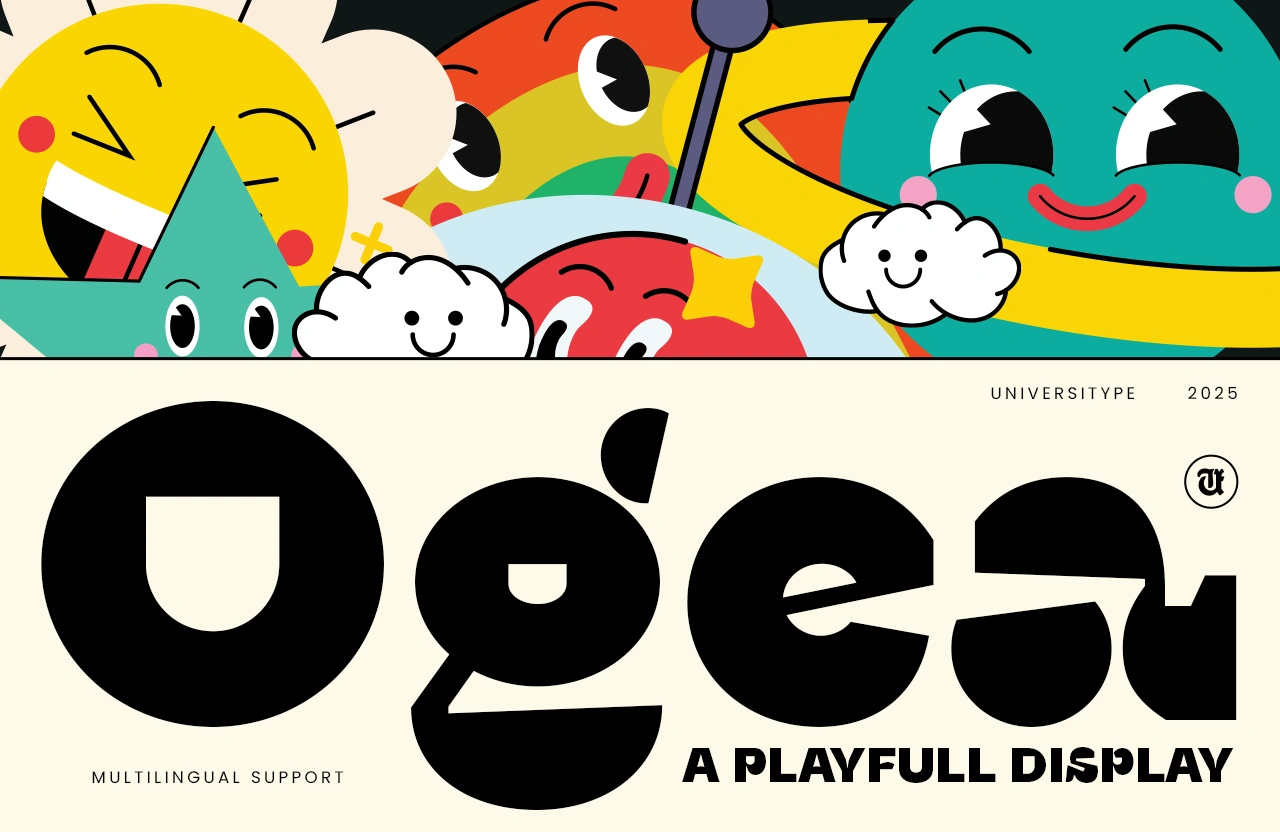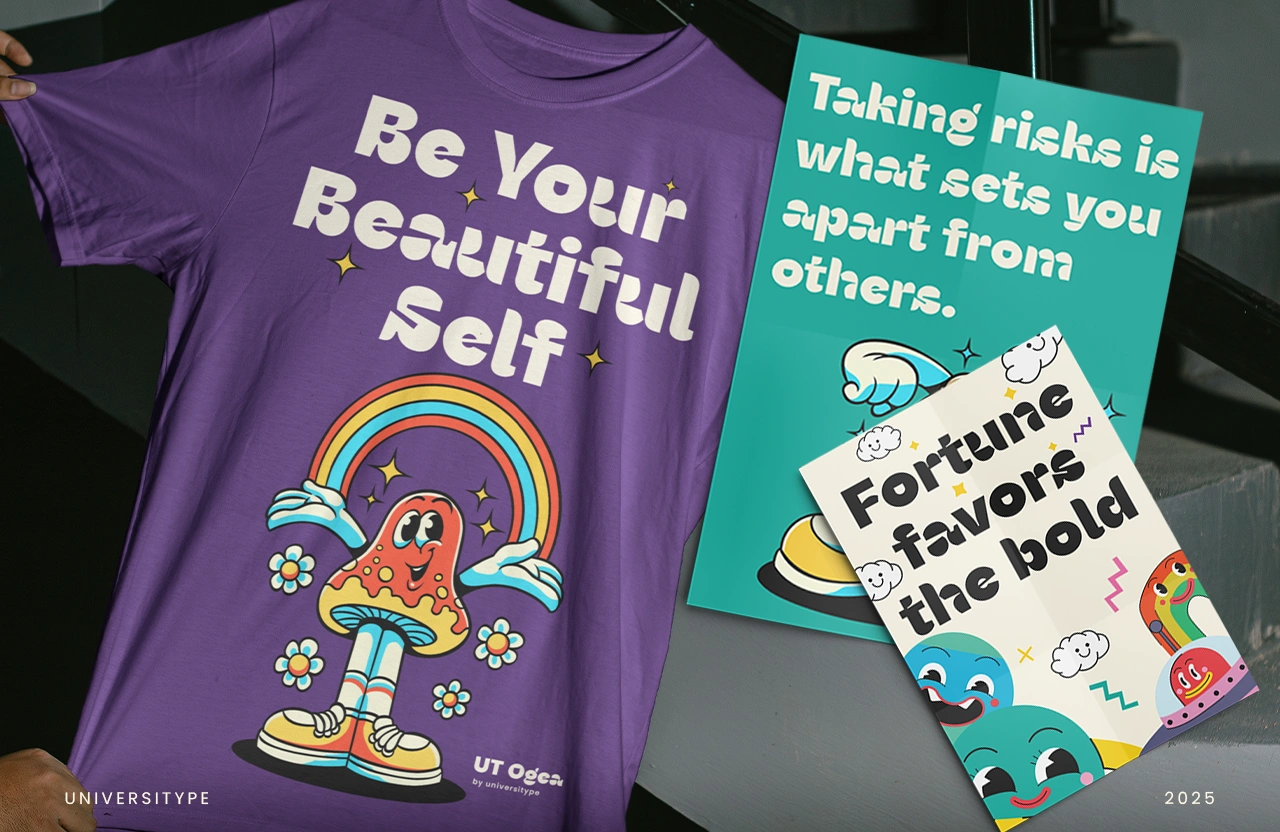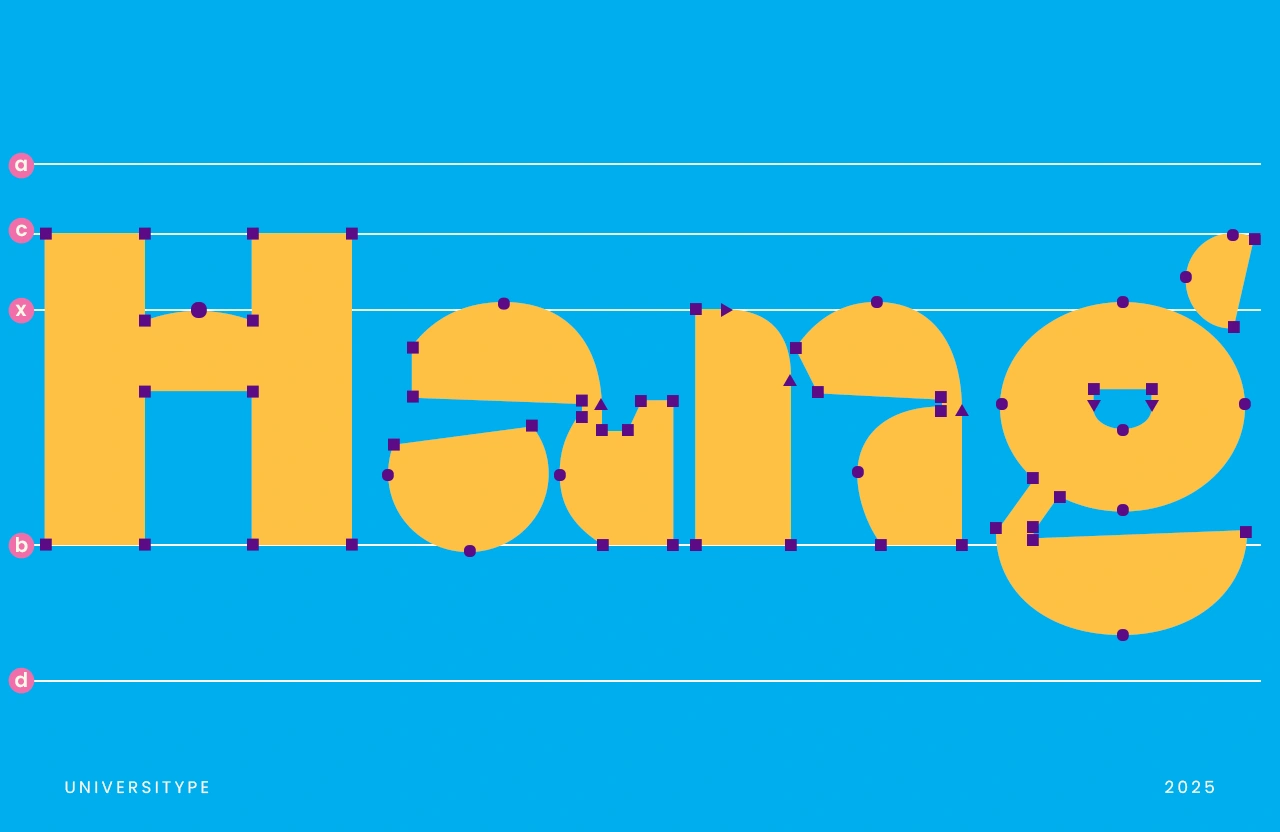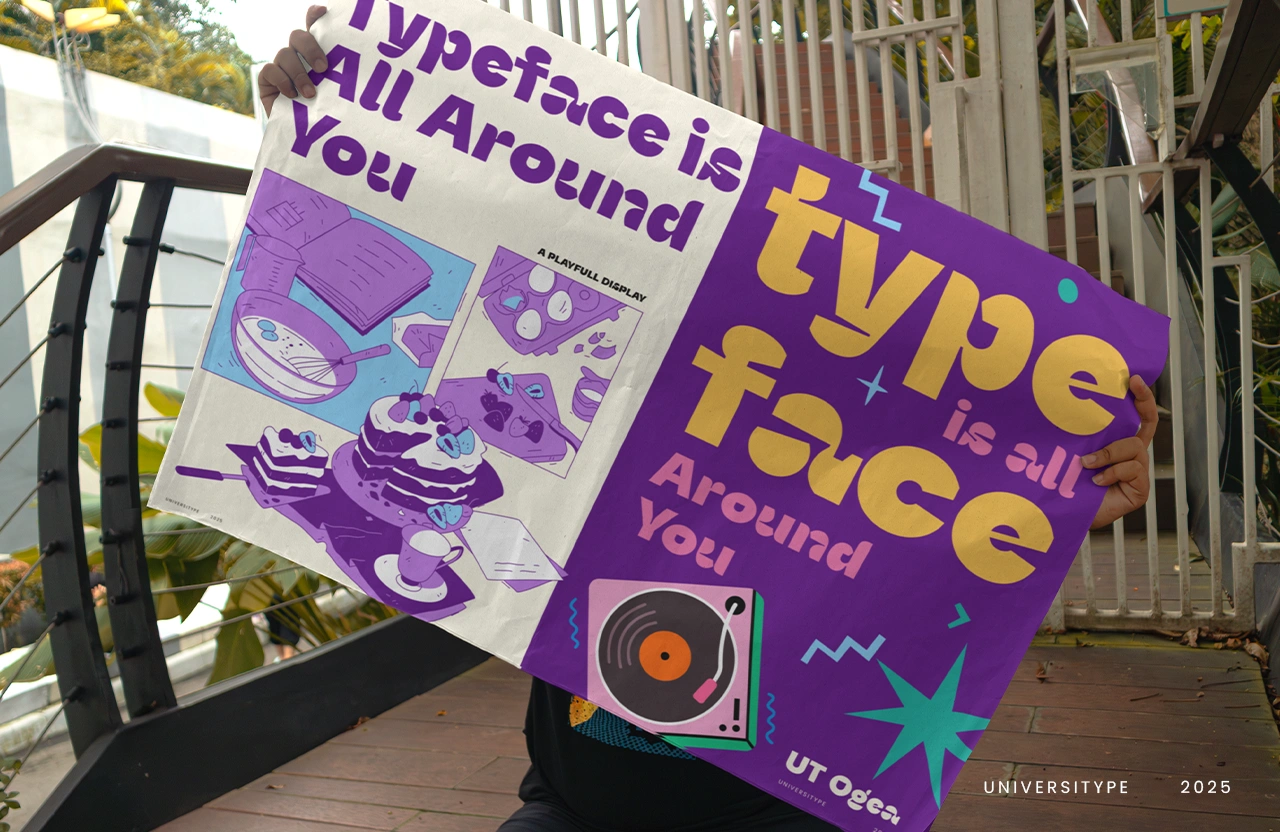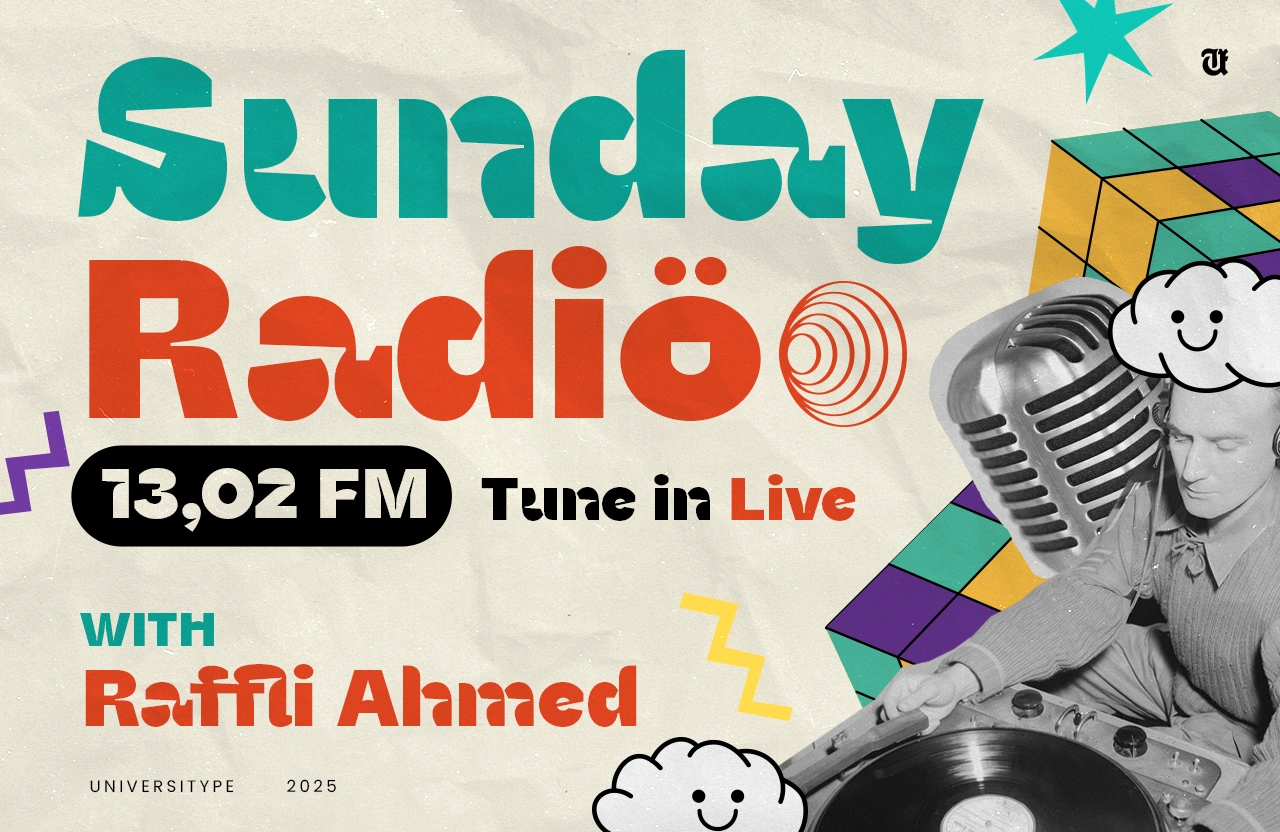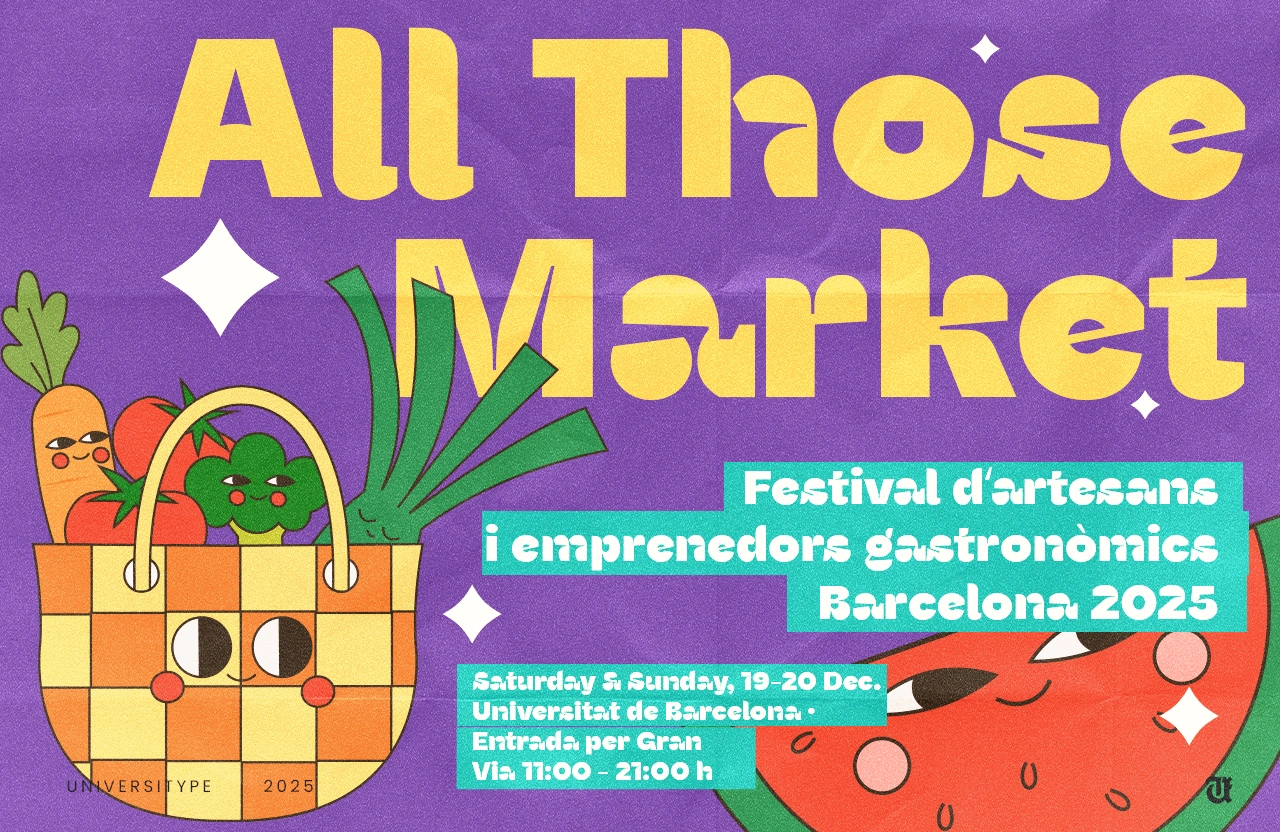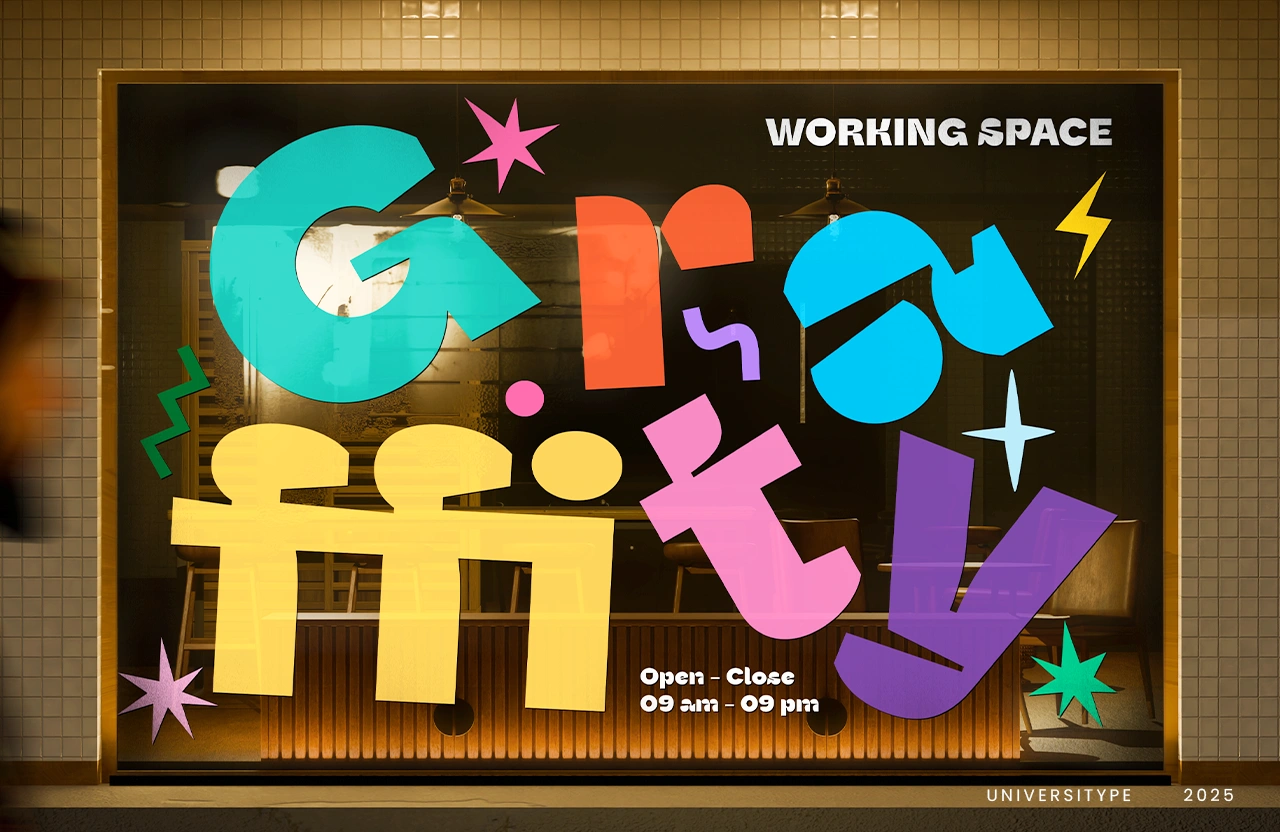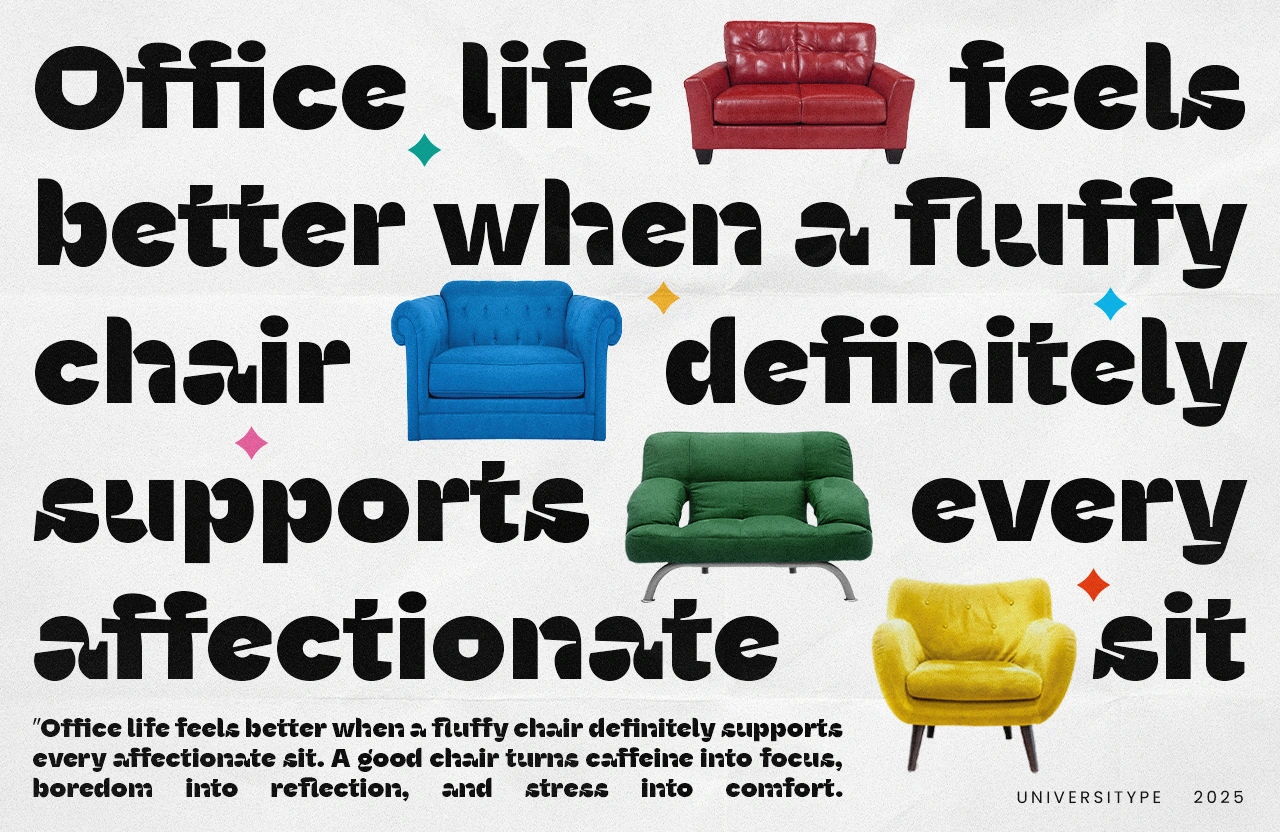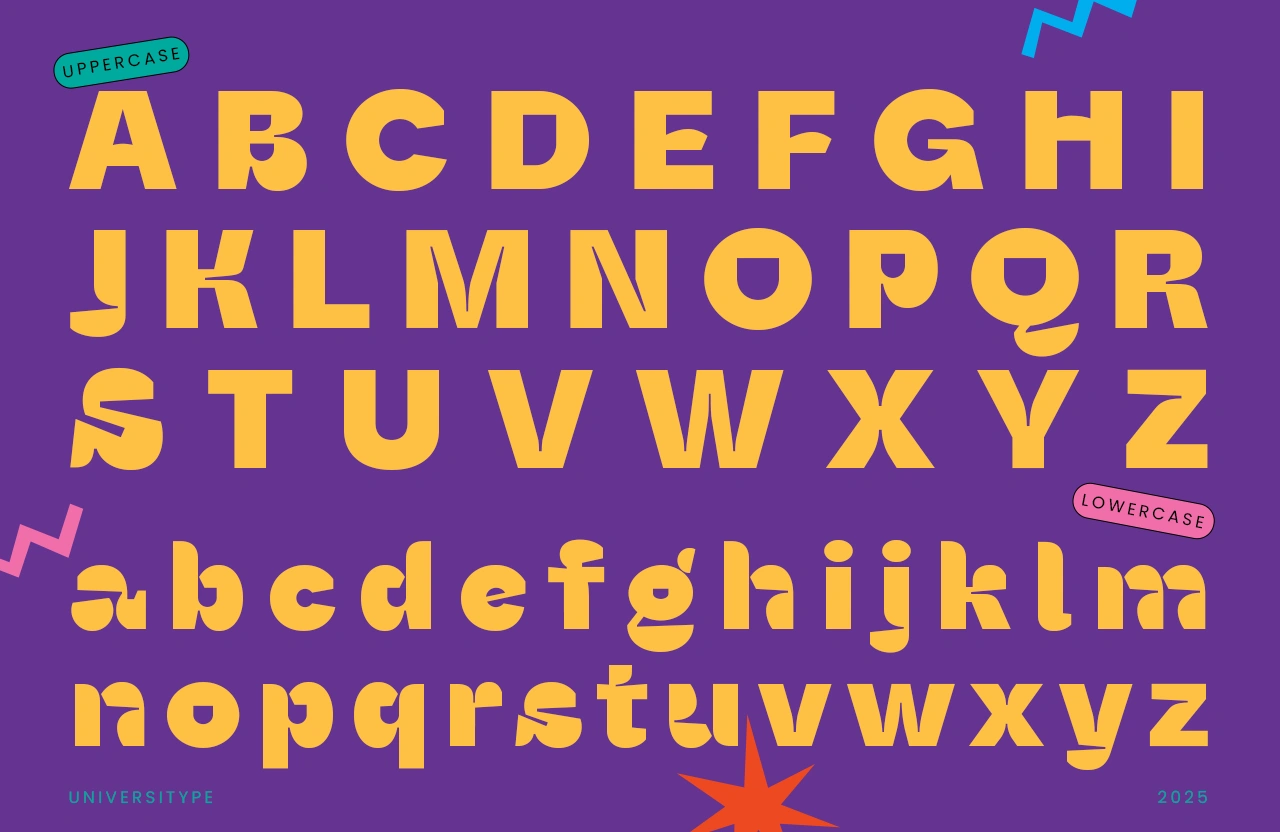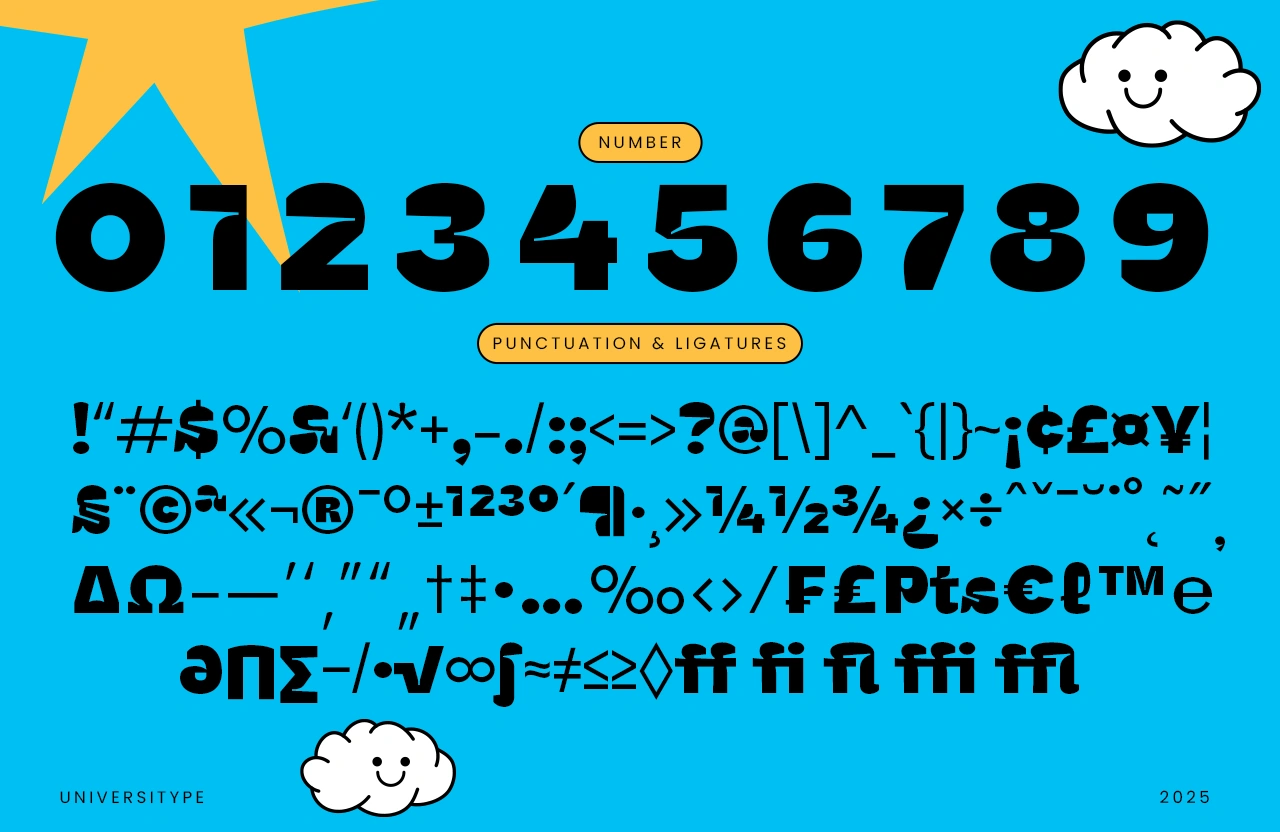
UT Ogea Display
UT Ogea Display is a lively display font that brings bold energy and playful character to any project. With chunky shapes, quirky angles, and a geometric yet friendly design, Ogea is made for creatives who want their words to stand out. Inspired by childhood joy and vibrant doodles, it’s the perfect choice for posters, branding, social media, or any design that calls for fun. Packed with multilingual support and unique alternates, Ogea makes your text not just readable, but unforgettable. Whether for digital screens or print, Ogea turns your message into a joyful visual statement.
UT Ogea – A Playful Display Font
UT Ogea is a bold, quirky, and joy-filled display font designed to spark creativity and bring fun into your projects. With its chunky letterforms, playful curves, and unexpected cuts, Ogea doesn’t just communicate words—it communicates energy. Perfect for projects that need a dose of personality, Ogea turns ordinary text into a statement that feels friendly, modern, and full of life.
Target Audience
• Creative professionals (designers, illustrators, branding specialists)
• Event organizers, kids’ brands, and lifestyle projects
• Startups, cafes, and creative spaces seeking a bold, approachable identity
• Social media content creators looking for standout typography
Key Features
• Bold, playful letterforms with geometric charm
• Multilingual support for global projects
• Perfect balance of quirkiness and readability
• Works beautifully in both print and digital formats
• Includes ligatures and alternates for added variety
Inspiration Behind the Design
Ogea was inspired by childhood joy, vibrant shapes, and the feeling of doodling without rules. Think colorful building blocks, retro cartoons, and the charm of handmade signs. it’s all about capturing that nostalgic, fun-loving vibe while keeping it fresh and modern.
Usage Suggestions
• Eye-catching posters and flyers
• Branding for playful businesses (cafés, toy shops, creative studios)
• Social media graphics and content
• Merchandise (t-shirts, stickers, packaging)
• Event promotions and festival identities
• Features: Multilingual support, ligatures, stylistic alternates, standard punctuation